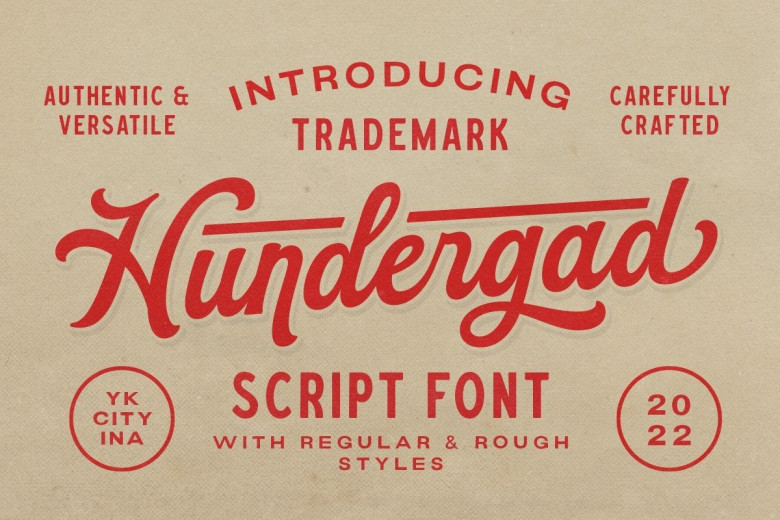
Hundergad Font
Hundergad has an elegant vintage aesthetic, making it the ideal font choice for logos and formal forms such as magazines, books greeting cards wedding cards packaging fashion make up stationery novels advertising purposes or advertisement purposes.
Hundergad Script Font